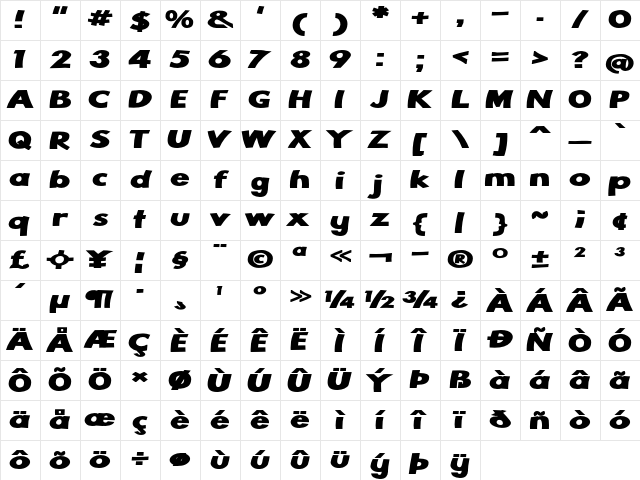
Phat Tuesday Expanded Bold
Style: Expanded Bold
Phat Tuesday Family
Phat Tuesday Expanded Bold
Design Context for Phat Tuesday
Phat Tuesday is a composed and adaptable typeface that performs quietly and consistently across a wide range of design contexts. Its bold stroke weight gives it real presence on the page.